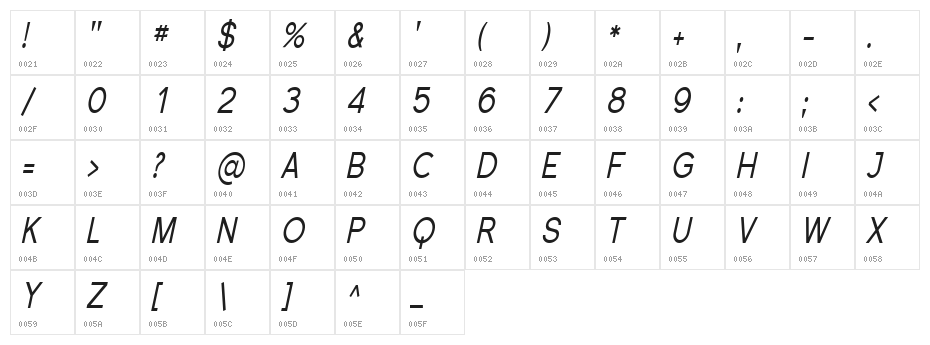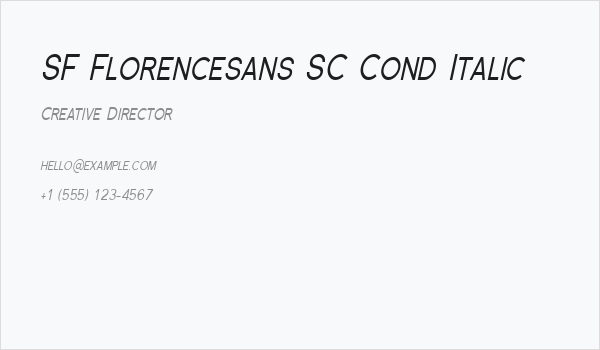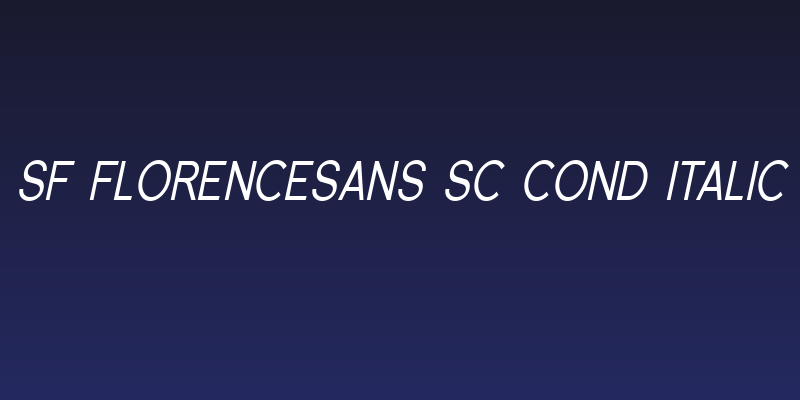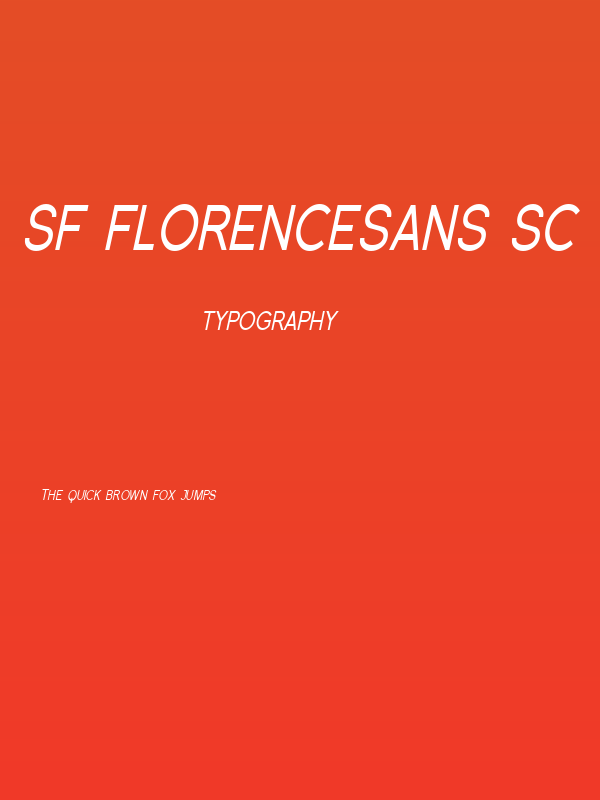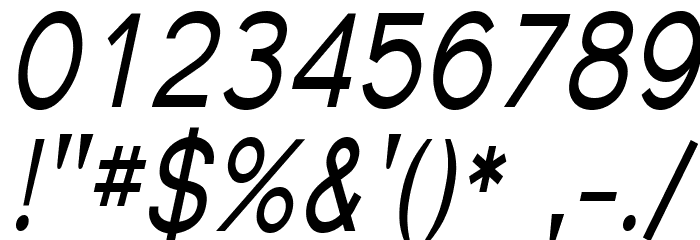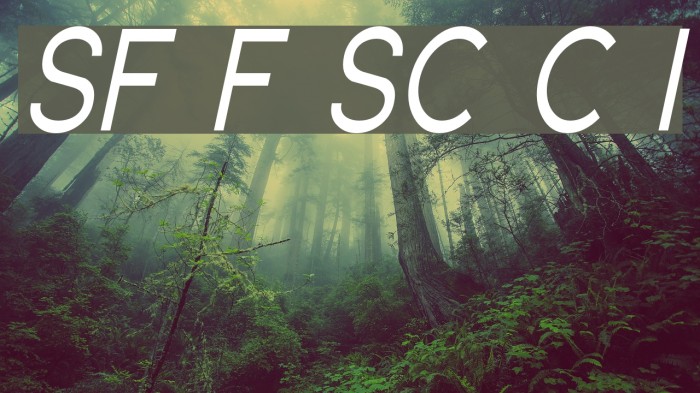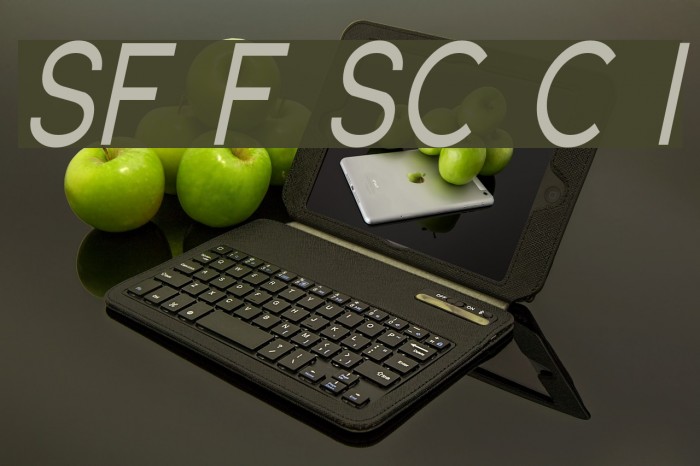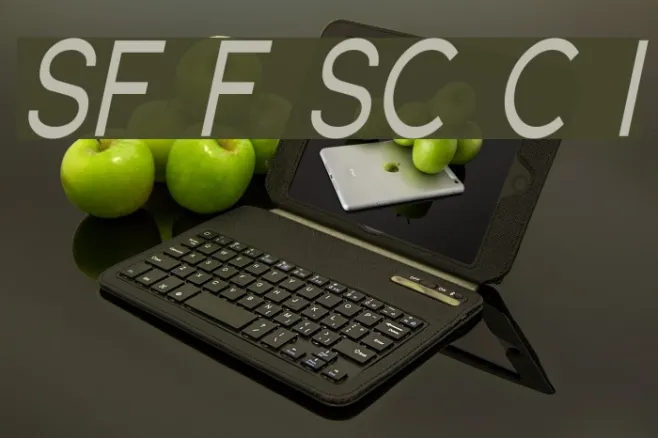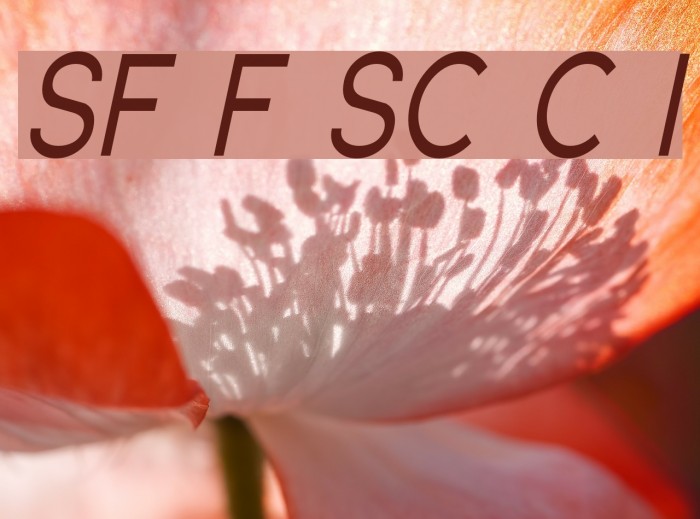
SF Florencesans SC Cond Italic Font
SF Florencesans SC Cond Italic Description
This font features a sleek, modern design with a condensed and italicized style. The characters are clean and sans-serif, providing a streamlined and contemporary appearance. The slant of the italic adds a dynamic and forward-moving feel, making it suitable for projects that require a sense of motion or progress. The spacing between characters is tight, enhancing its compact look. The font maintains a consistent stroke width, offering low contrast, which contributes to its uniformity and readability. The overall style is modern and professional, ideal for various digital and print applications.
| Proposed Projects | Ideal for branding, advertising, headlines, and digital interfaces where a modern and dynamic look is desired. |